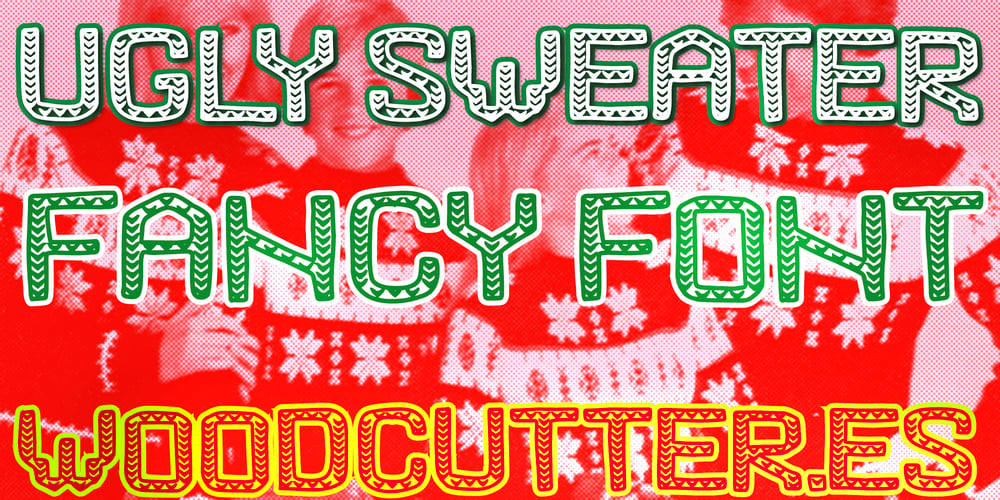
Ugly Sweater Font Family was designed by Jordi Manero and published by Woodcutter. Ugly Sweater contains 1 styles and family package options. “Ugly Sweater” is a fun font that mimics the embroidered letters on classic Christmas sweaters in uppercase. Each letter evokes the charmingly kitschy texture and design of holiday jumpers, capturing the festive spirit with a humorous twist. Ideal for greeting cards, party invitations, and any project needing a cheerful and festive touch, this font brings a sense of warmth and fun. The details in each character make the text look hand-stitched, perfect for the holiday season.